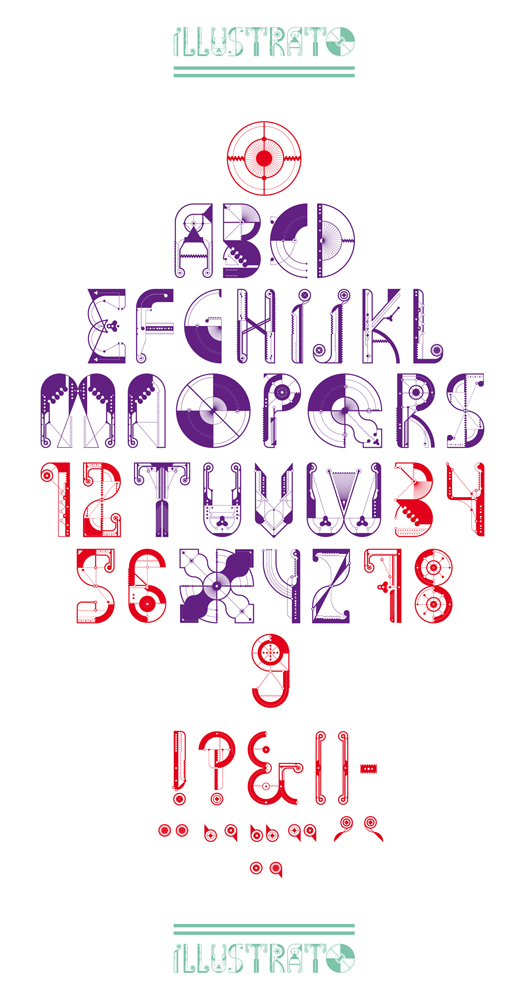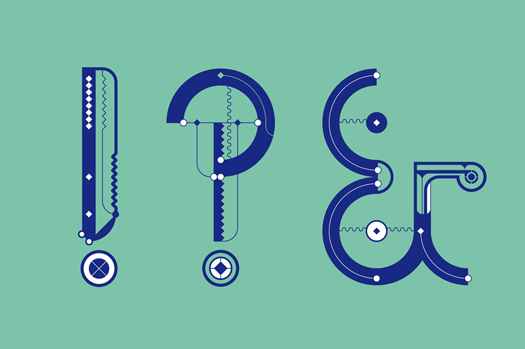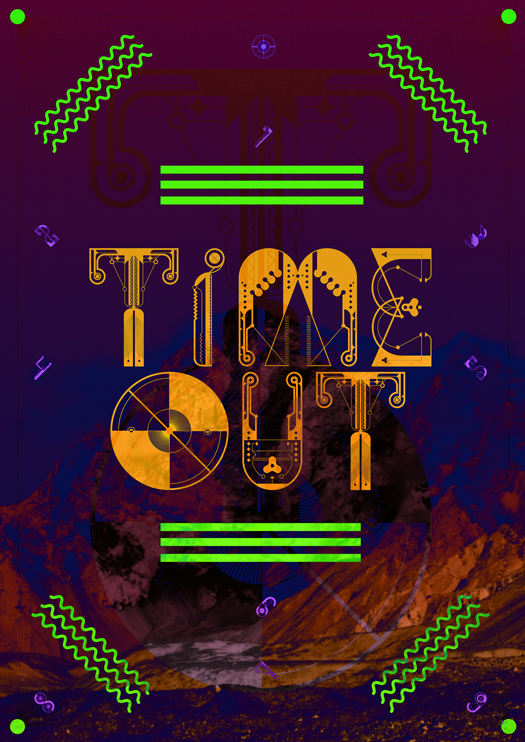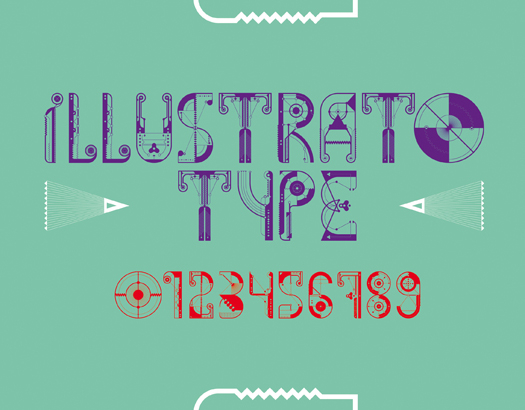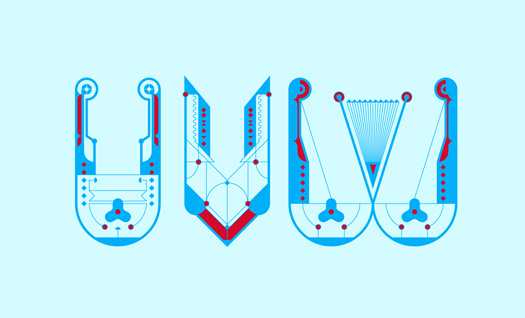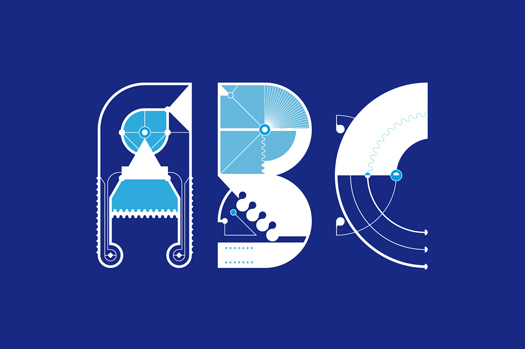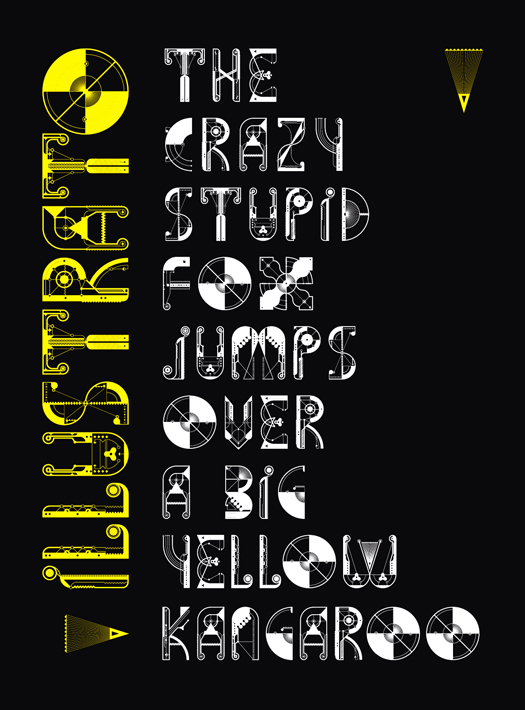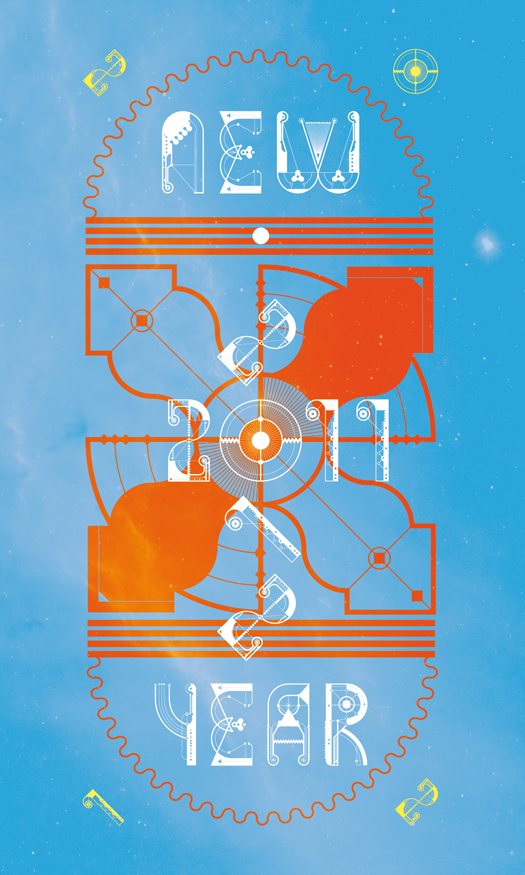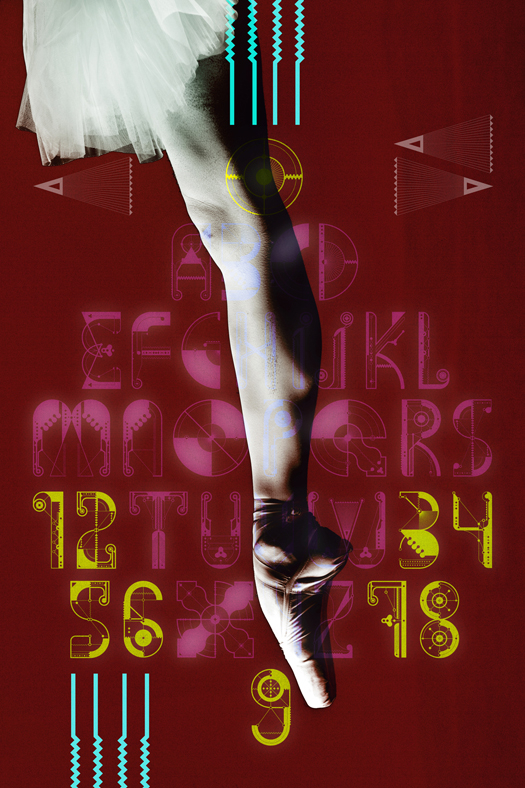
Illustrato
I spent a lot of hours designing this typeface, which I call 'Illustrato'. Every letter and number is unique, there are only 'returing' shapes to create cohesion. So I tried something new, experimenting in a new style, with different shapes and colours.
Designer: Jorrit Van Rijt
Publisher: Handmadefont